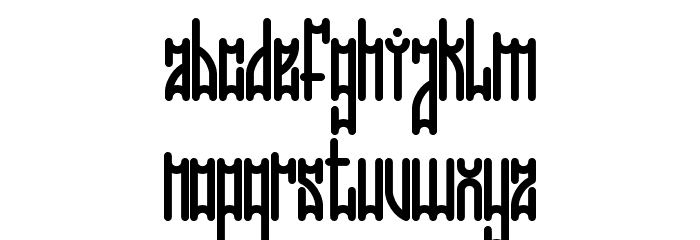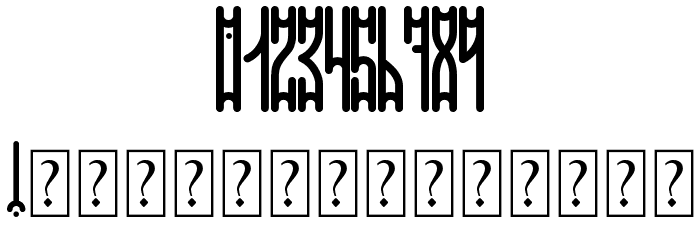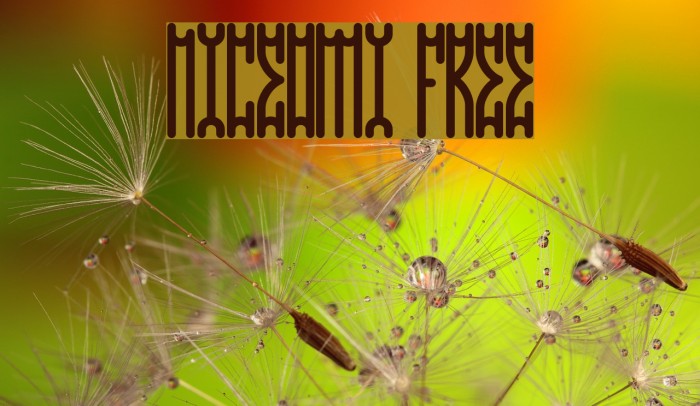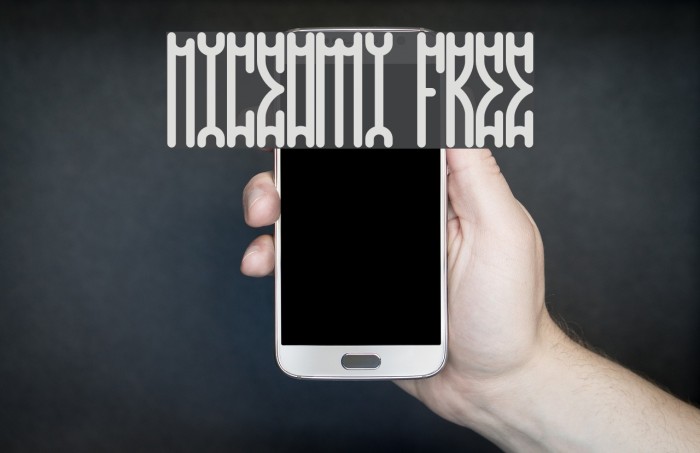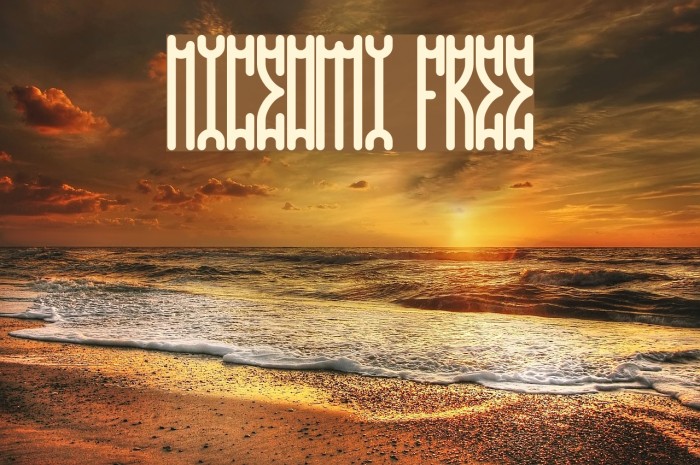
NICEOMI FREE Font
This font features a unique and bold design with elongated vertical lines and rounded edges, creating a striking visual impact. The uppercase and lowercase letters maintain a consistent height, giving it a monospaced appearance. The numbers and special characters follow the same stylistic approach, ensuring uniformity across all glyphs. The font's distinct style makes it suitable for creative and artistic projects, where a strong and memorable typeface is desired. Its decorative nature is evident in the intricate details of each character, making it stand out in any design context.
A bold, decorative font with elongated vertical lines and rounded edges.
- Proposed Projects: Ideal for posters, album covers, branding, and any project needing a bold, artistic touch.
- Character Spacing: Tight